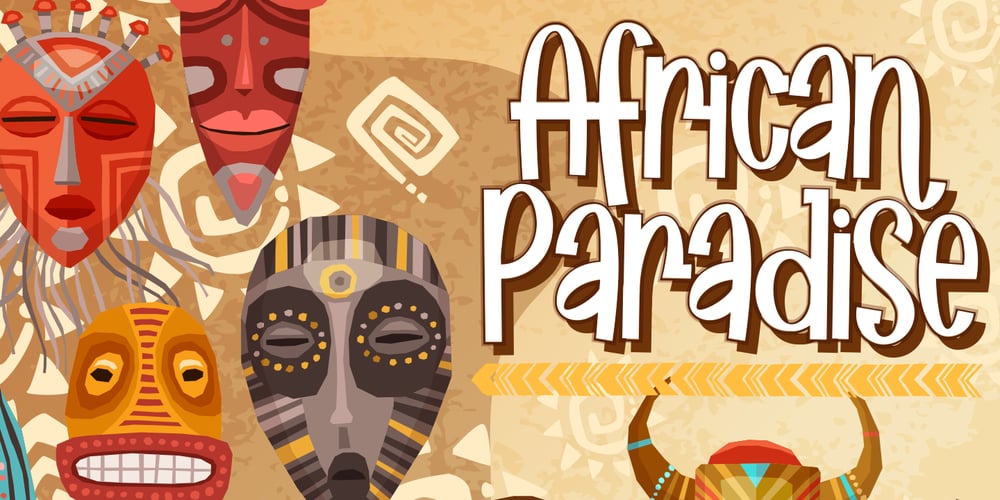
African Paradise Font Family was designed by Gumilar Pratama Adiatna and published by Gilar Studio. African Paradise contains 3 styles and family package options. African Paradise a Handwritten Display Font With 3 Style (Regular,Outline and Shadow)You Can Mix And Match for Your Awesome ProjectThis fonts is ideal for crafting, branding and decorate your any project. This fonts are perfect for wedding invitation or your blog. Also with their help, you can create a logo or beautiful frame for your home. Or just use for your business, book covers, stationery, marketing, magazines and more.FEATURES :Uppercase & LowercaseNumber & PunctuationMore than 251 of glyphsMultilingual LanguagePUA EncodeLigaturesAlternateThe alternative characters were divided into several Open Type features can be accessed by using Open Type savvy programs such as Adobe Illustrator, Adobe InDesign, Adobe Photoshop Corel Draw X version, And Microsoft Word. And this Font has given PUA unicode (specially coded fonts). so that all the alternate characters can easily be accessed in full by a craftsman or designer.If you don’t have a program that supports OpenType features such as Adobe Illustrator and CorelDraw X Versions, you can access all the alternate glyphs using Font Book (Mac) or Character Map (Windows).To Access Alternate Characters Click The Link Below:Adobe illustrator CS https://www.youtube.com/watch?v=geL0Ye02RykAdobe illustrator CC https://www.youtube.com/watch?v=V25yiUh8BcEMs Word https://www.youtube.com/watch?v=HxkhZiCuwEwCoreldraw X7 https://www.youtube.com/watch?v=UBVsufJjonsAdobe Photoshop CC https://www.youtube.com/watch?v=BYKXl58AdNYIndesign CS https://www.youtube.com/watch?v=HgZTCxKG14QThanks and happy designing :-)NOTE : The Mock-ups and photos used in the presentation of the font are for Preview Purposes only (Unsplash & Freepik source), not included in main file.